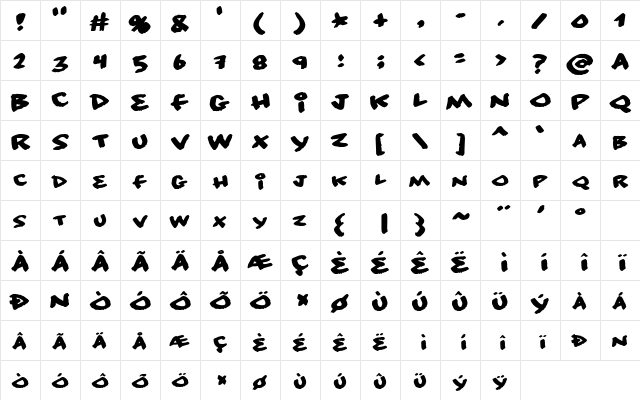
No consequence Regular
Design Context for No consequence Typeface
No consequence is a composed and adaptable typeface that performs quietly and consistently across a wide range of design contexts.
Pro Tip: Pair No consequence with a font of contrasting weight or personality to build a more expressive typographic hierarchy.